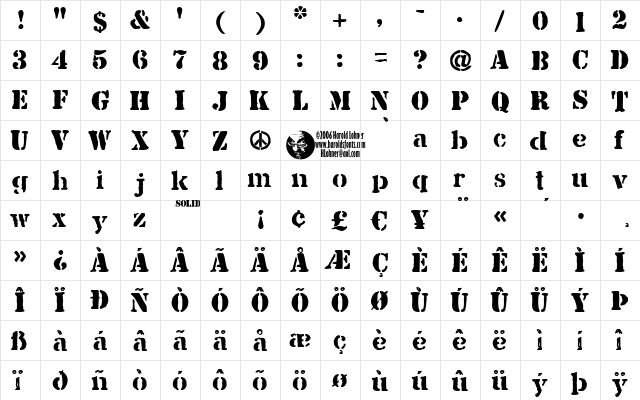
JJStencil Solid Regular
Design Context for JJStencil Solid Typeface
JJStencil Solid borrows the utilitarian aesthetic of stencil lettering, with its characteristic cutaways and no-frills construction lending an industrial edge.
Ideal for industrial branding, streetwear, military-adjacent aesthetics, and urban signage projects.
Pro Tip: Pair JJStencil Solid with raw, utilitarian design elements — exposed concrete textures, flat colour, and minimal ornamentation suit it well.